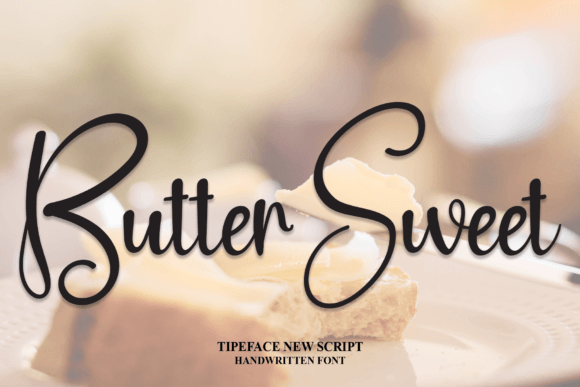
Unleash the Enchantment of Butter Sweet Font - A Handwritten Masterpiece for Every Occasion
Journey into the realm of charm and elegance with Butter Sweet Font, a meticulously crafted handwritten font that exudes warmth and playfulness. Step into a world where words dance with a touch of whimsy and heartfelt emotion, leaving an enduring impression on every design you create.
With its graceful strokes and organic flow, Butter Sweet Font is the perfect choice for adding a personal touch to your creative projects. Whether you're designing heartfelt greeting cards, enchanting invitations, captivating social media posts, or personalized logos, Butter Sweet Font will effortlessly elevate your designs to new heights.
Immerse yourself in the versatility of Butter Sweet Font, seamlessly adaptable to a myriad of creative endeavors. Its friendly and approachable nature makes it a natural fit for crafting heartfelt messages, while its playful and whimsical charm lends itself beautifully to eye-catching branding and marketing materials.
Experience the boundless possibilities of Butter Sweet Font and let your imagination soar. Its effortless elegance will add a touch of sophistication to your wedding invitations, a dash of delight to your party flyers, and a sprinkle of magic to your digital designs. Embrace the enchanting world of Butter Sweet Font and let your creativity flourish.